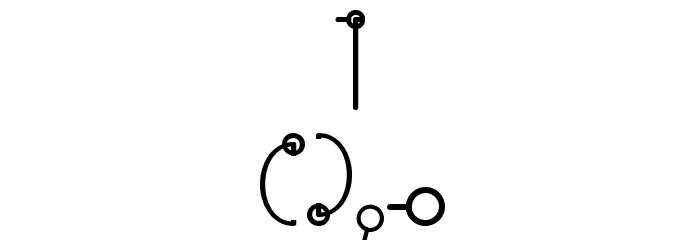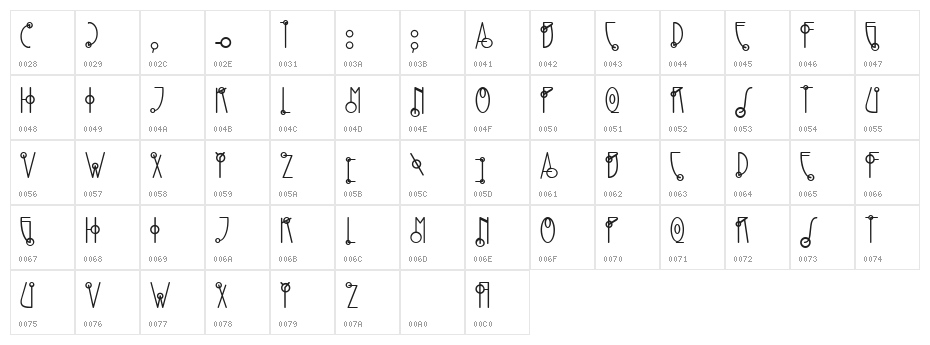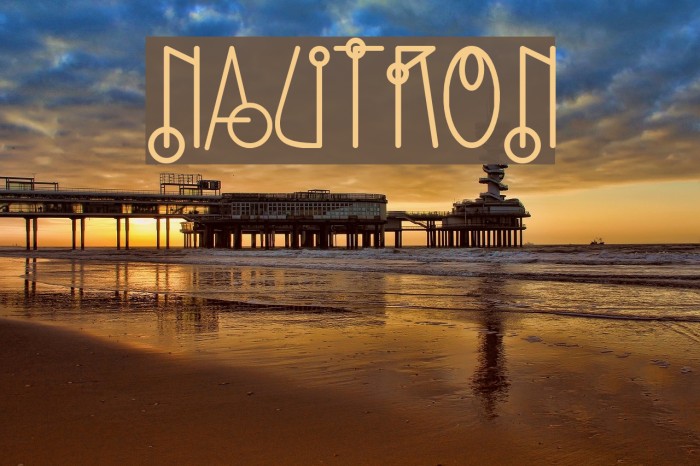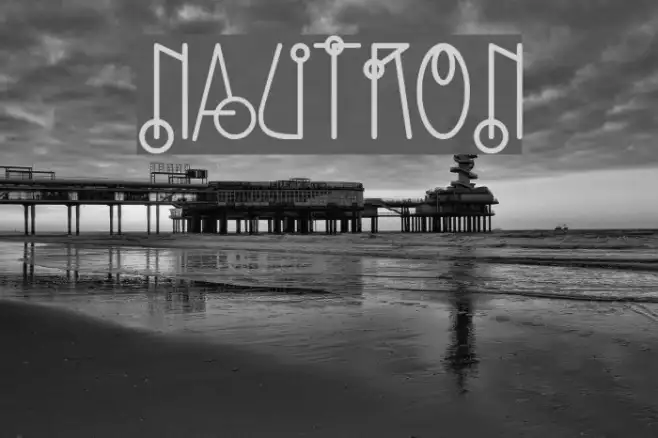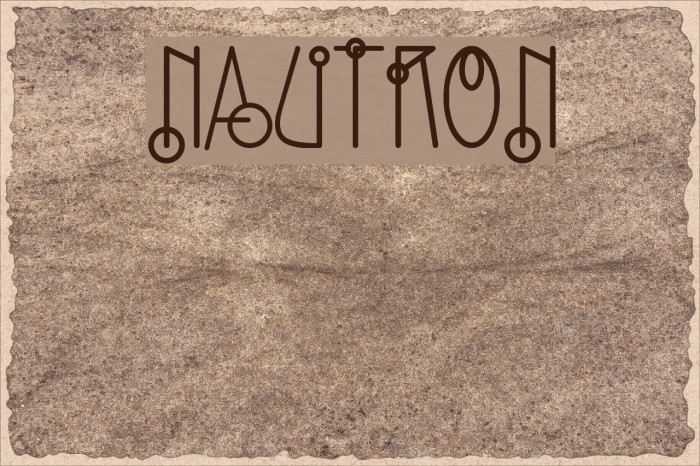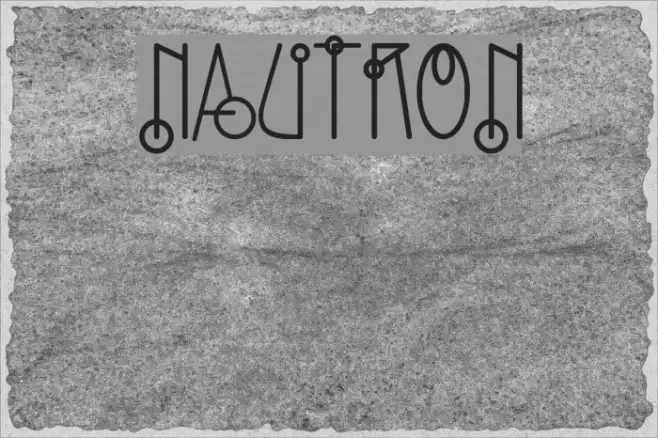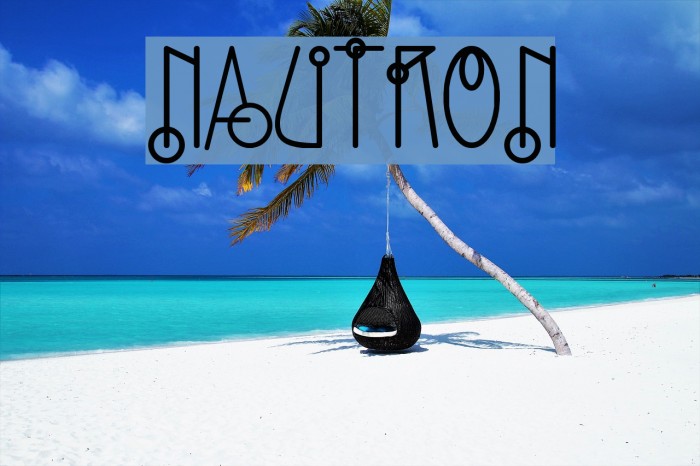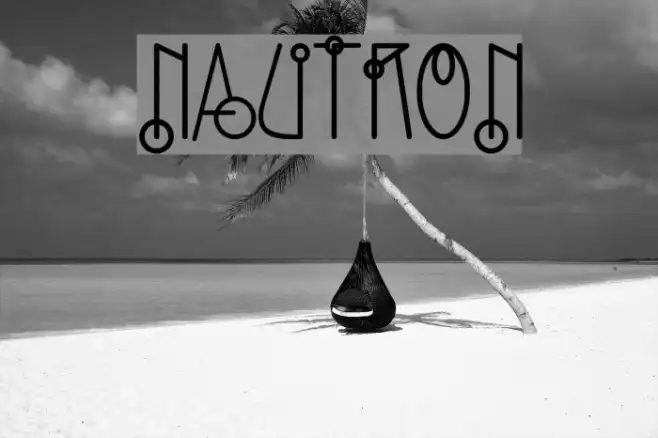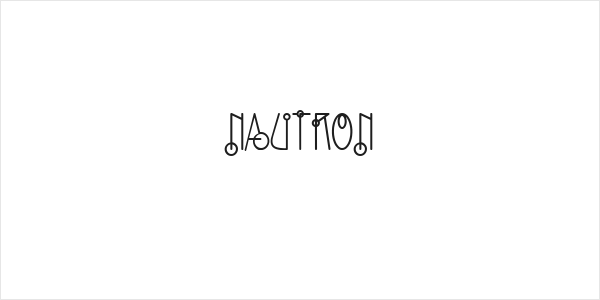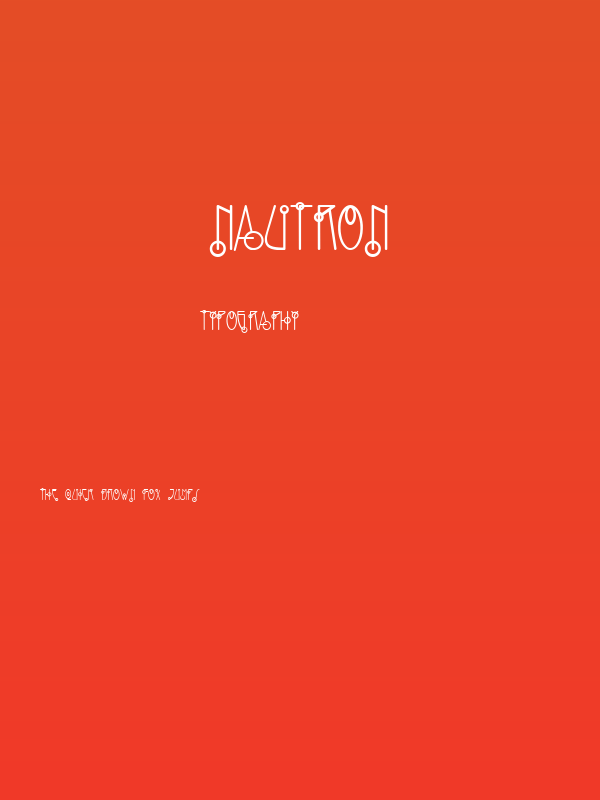
Nautron Font
This font features a unique and futuristic design, characterized by its circular and linear elements that create a sense of movement and innovation. Each letter is crafted with a combination of straight lines and circular motifs, giving it a distinct and modern appearance. The uppercase and lowercase letters maintain a consistent style, with the circular elements often serving as focal points or connectors between strokes. The numbers and special characters are designed to match the overall aesthetic, ensuring a cohesive look across all glyphs. This font's playful yet structured design makes it suitable for creative and tech-oriented projects.
Overall StyleFuturistic
Proposed ProjectsIdeal for tech branding, sci-fi themed designs, video game interfaces, and modern art projects.